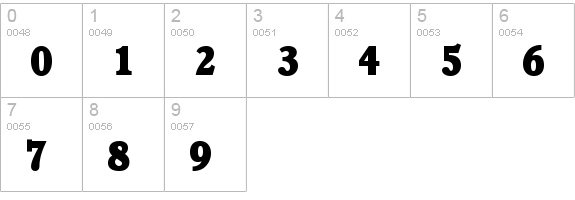
Calgary-Heavy is a heavy, high-impact variant in the Calgary typeface family \xE2\x80\x94 well suited to high-impact headlines, posters, and display advertising.
The Calgary-Heavy font is a bold and impactful typeface that commands attention with its strong and sturdy design. Its thick, heavy strokes make it perfect for headlines, titles, and other design elements that require a bold presence. Despite its weight, Calgary-Heavy exudes a sense of modernity and sophistication, making it a versatile choice for a wide range of design projects. This stylish font is available for free download at FontsMarket.com, where you can easily access and incorporate it into your creative endeavors. Whether you're working on branding materials, posters, signage, or any other design project that calls for a bold and eye-catching font, Calgary-Heavy is sure to make a lasting impression. Download it today and add a touch of strength and style to your designs!